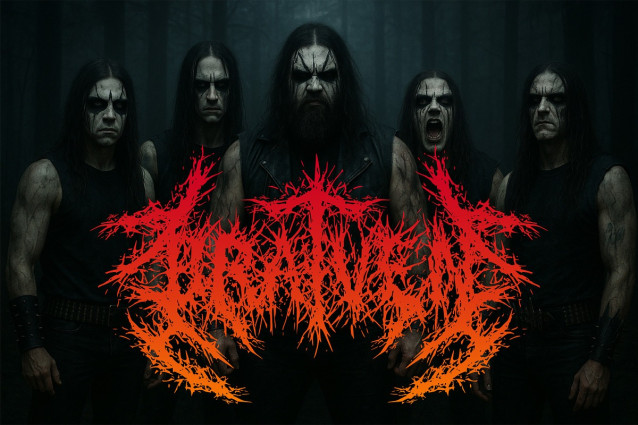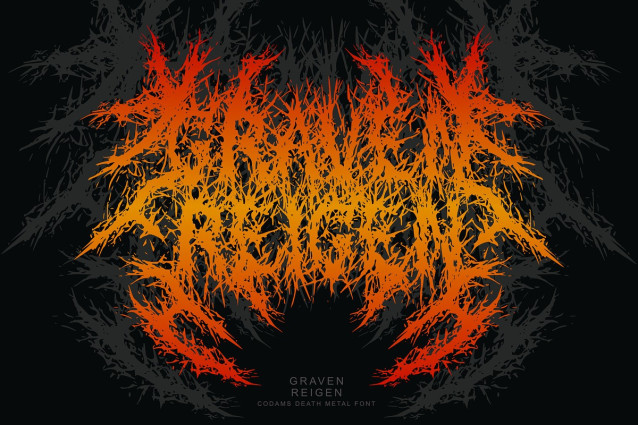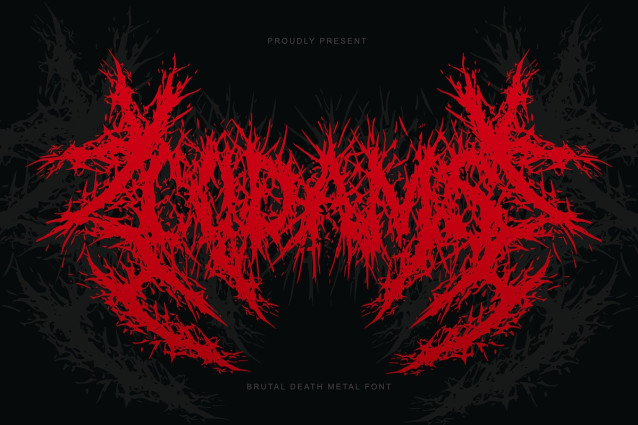
Codams Brutal Death Metal Font
Codams Brutal Death Metal Font – a font forged from the ferocity of Brutal Death Metal. Inspired by the relentless aggression and dark majesty of the genre, CODAMS captures the essence of destruction, raw energy, and uncompromising power. This is not just a typeface—it’s a weapon for those who live and create on the edge.
Every glyph in CODAMS is carved to resemble shattered bones, twisted steel, and blood-soaked stone. Its savage structure and serrated forms reflect the sonic violence of Brutal Death Metal, making it perfect for band logos, underground zines, tour merch, and extreme visual identities.
Whether you’re branding a festival that tears open the earth or crafting apparel that bleeds rebellion, CODAMS delivers a visual assault that can’t be ignored. With full character support, symbols, and multilingual capabilities, this font is ready to dominate across borders and mediums.